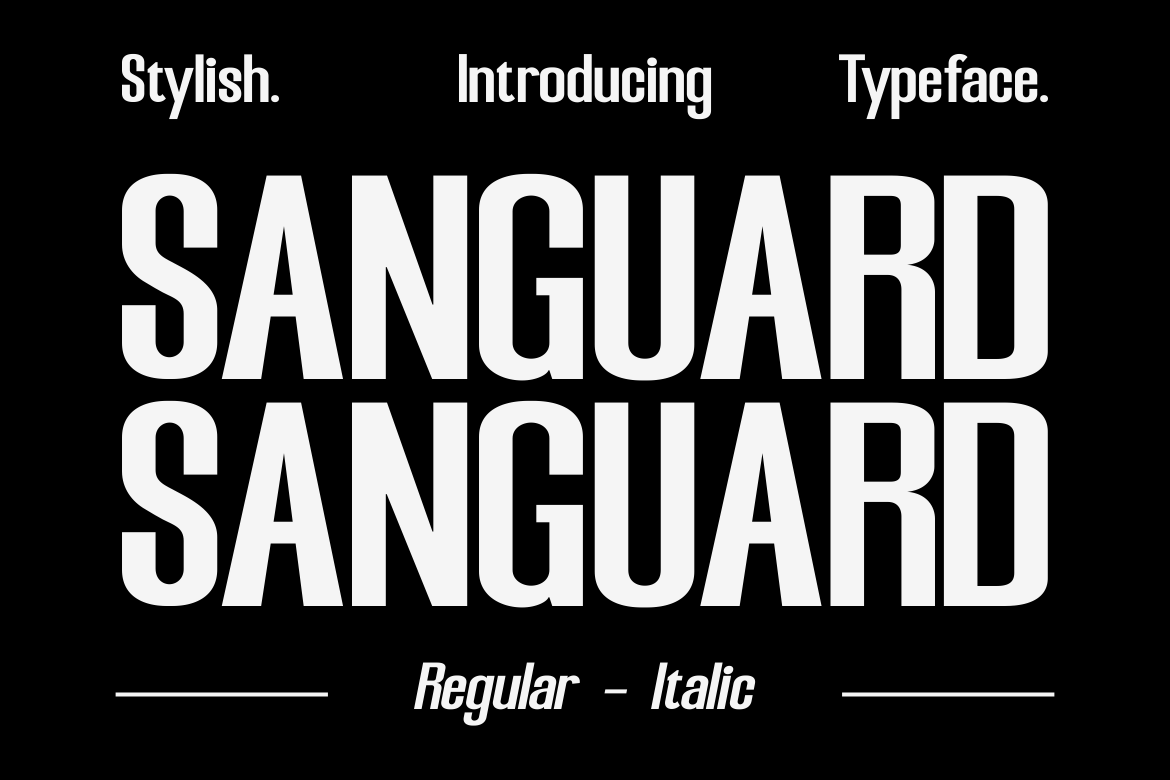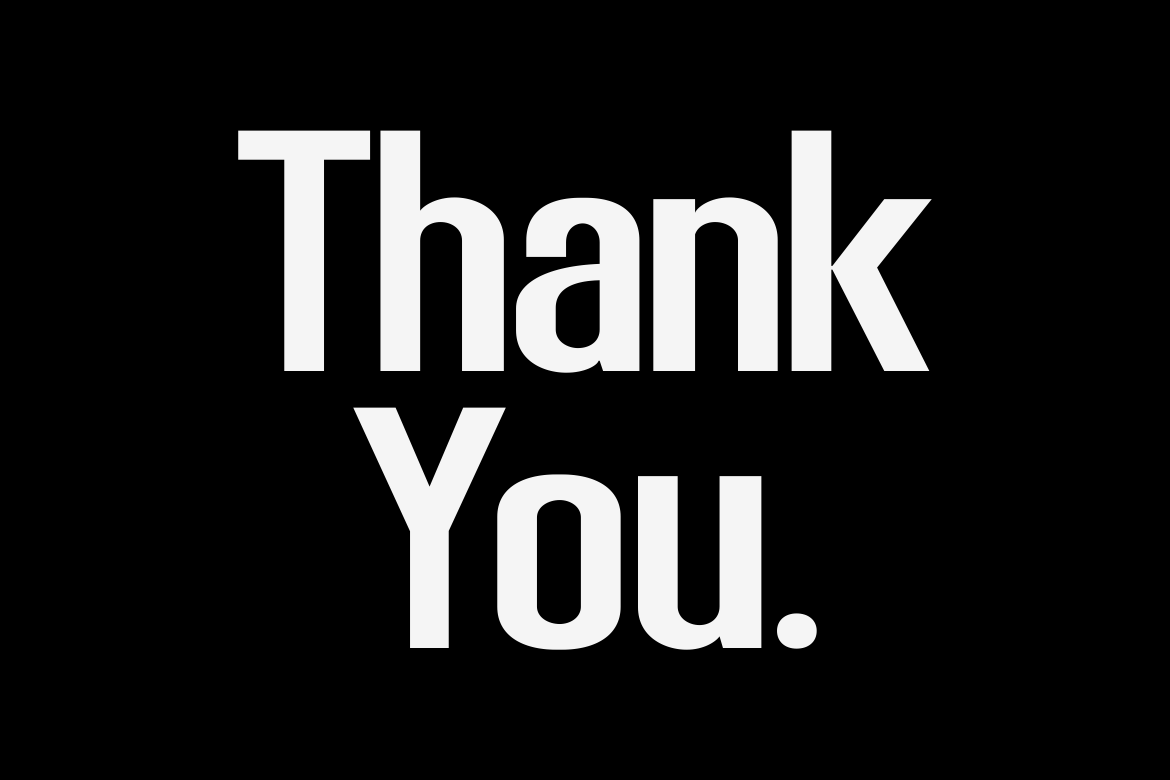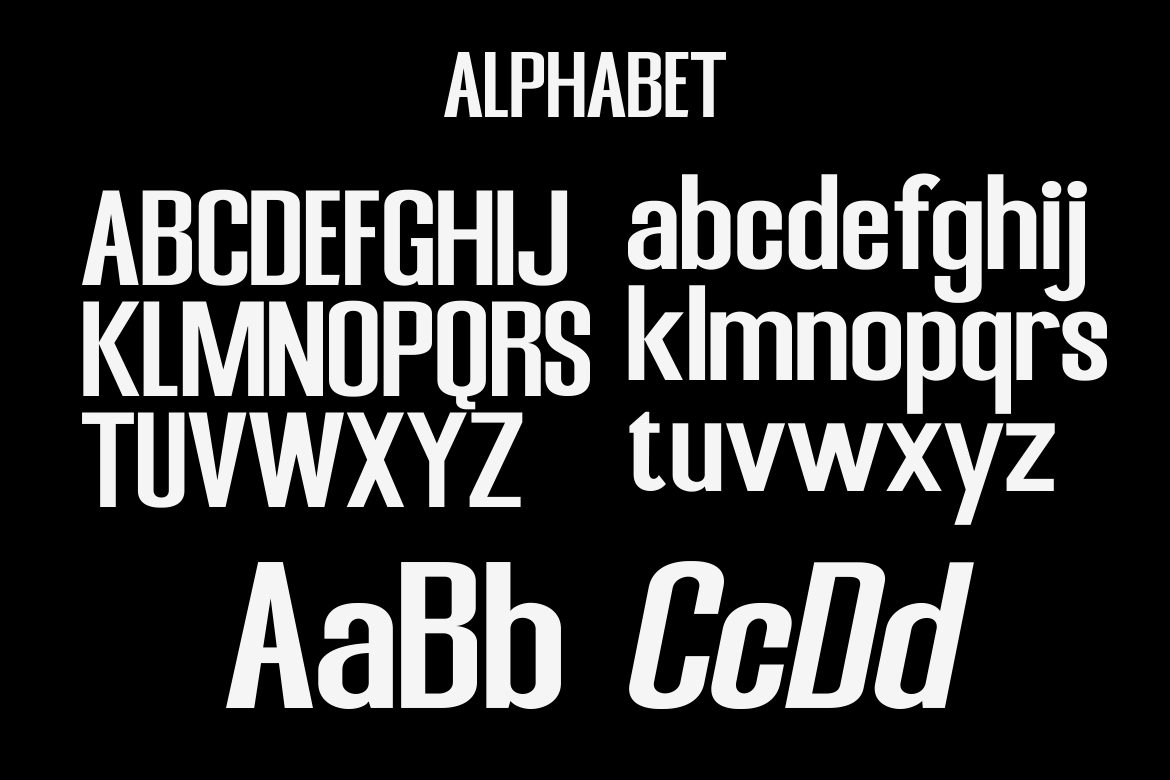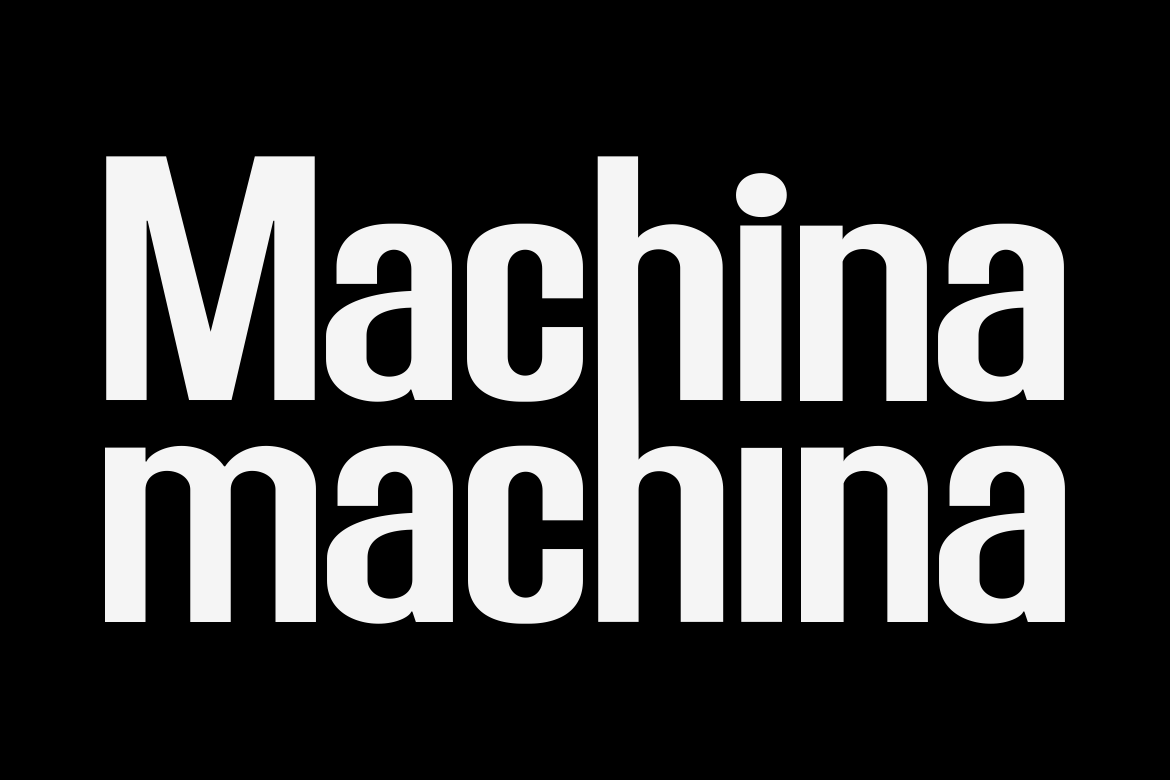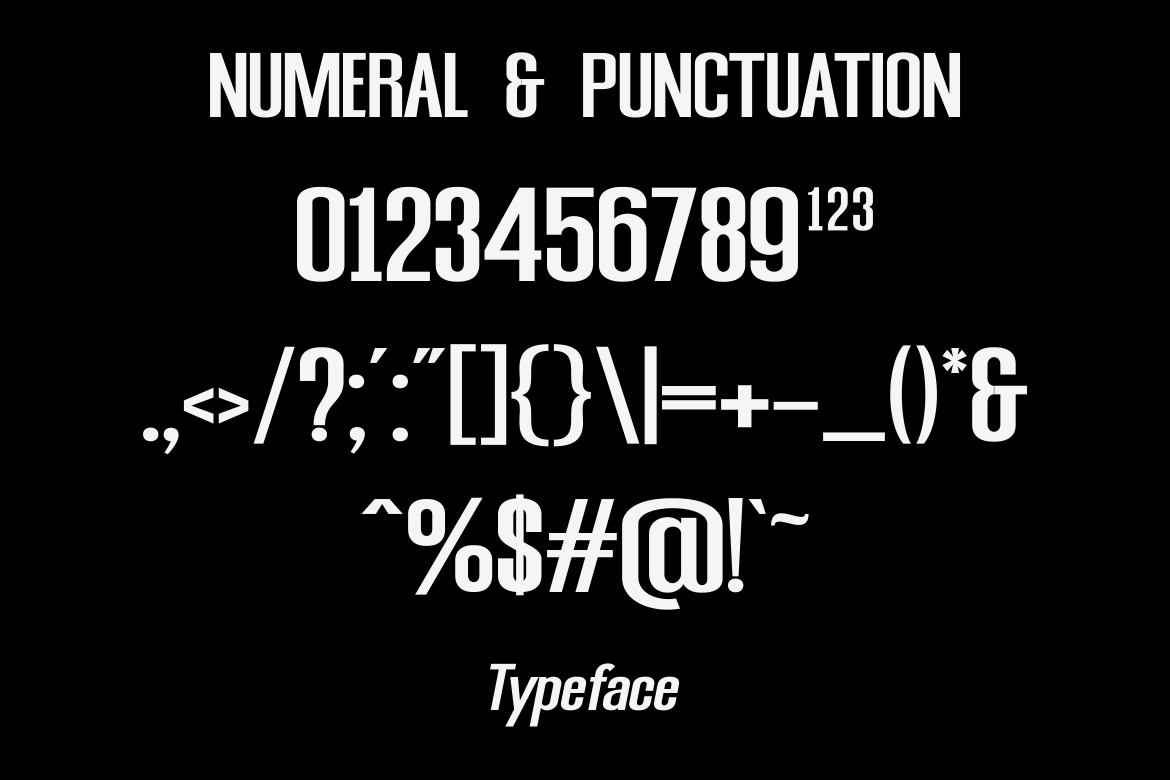
SANGUARD – A Modern Sans Serif Font
Introducing our new product SANGUARD Font – Modern Font
SANGUARD Font** – Modern Font is a bold and authentic display font. The font is suitable for any branding project like logo, t-shirt printing, Product and many more. outstanding in a wide range of contexts.